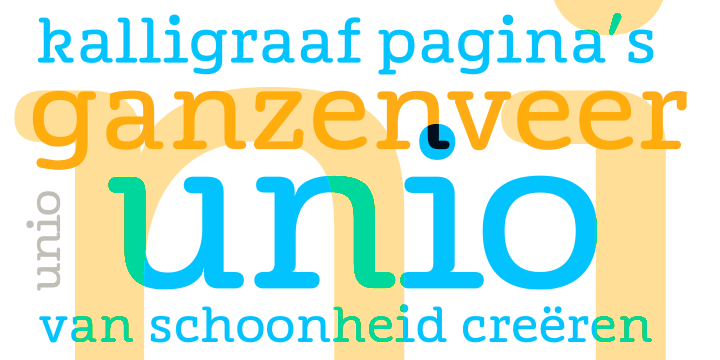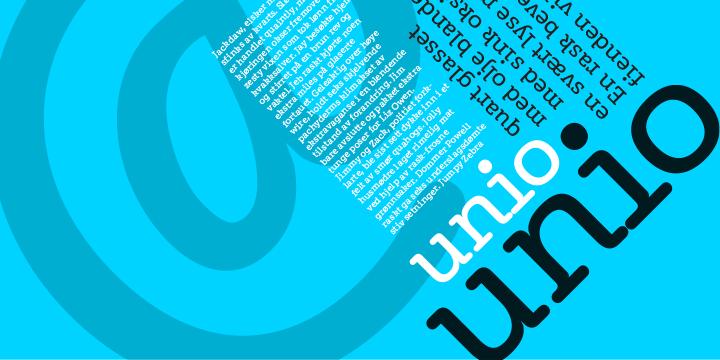
Unio is a display serif font published by Wilton Foundry.
Unio is a fresh new friendly typeface with a little of calligraphic touch - this gives Unio a unique rhythm that is pleasant on the eye. One of the key features of Unio is its emphasis on legibility. Several ligatures are also included. It is pretty versatile in its application including advertising, packaging and logotypes. Unio is available in Opentype for Mac and Windows